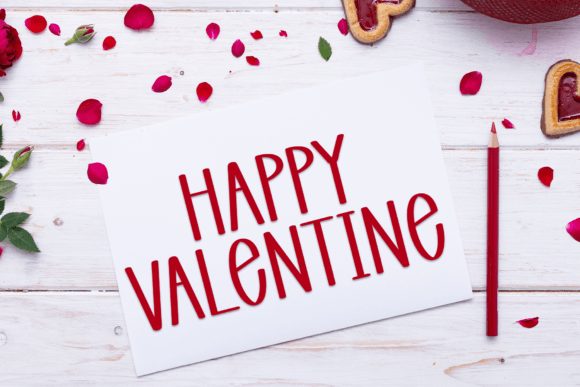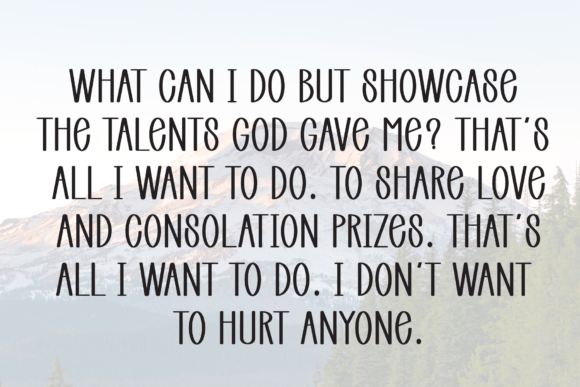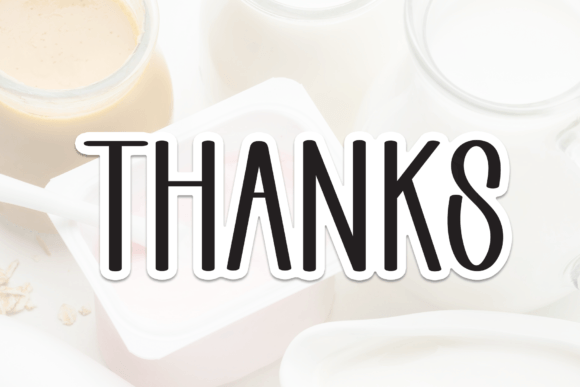
Introduction to Morning Yogurth Font
Morning Yogurth is a sweet and friendly handwritten font.
Key Features of Morning Yogurth Font
Why Choose Morning Yogurth Font?
Morning Yogurth Font offers exceptional quality and versatility, making it a valuable addition to your design toolkit. Whether you’re creating for personal projects or commercial use, Morning Yogurth Font delivers professional results.